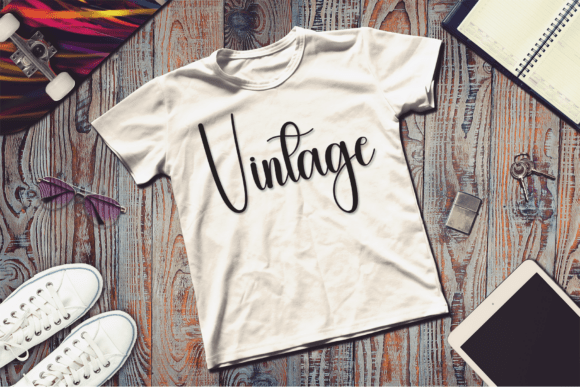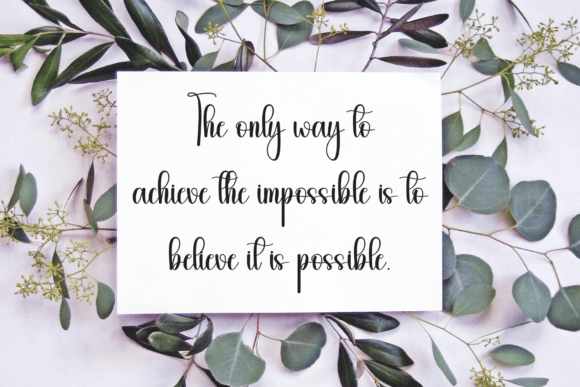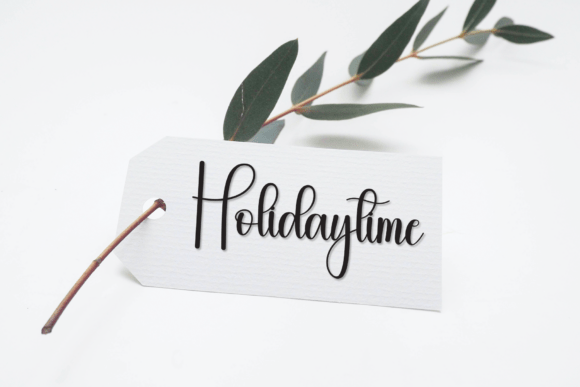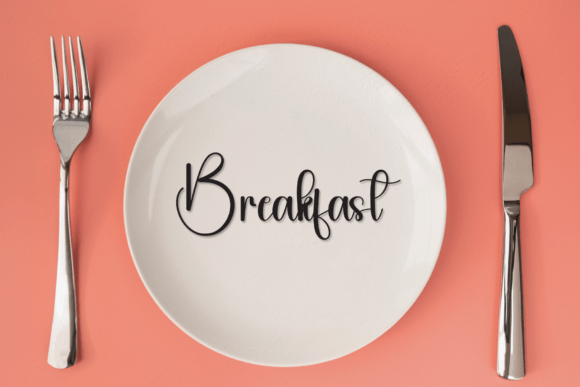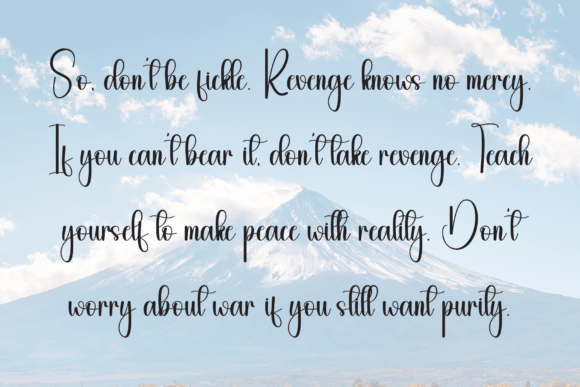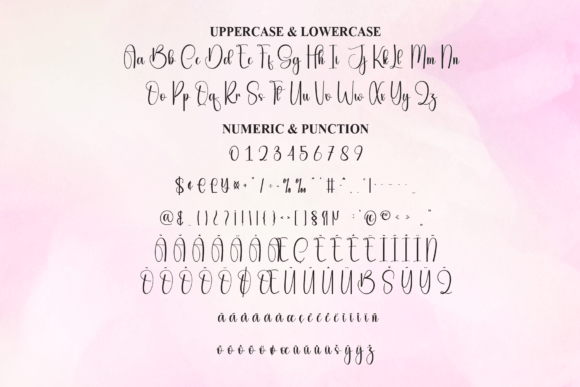
Meet the Font that Brings Barbie-esque Chic to Your Designs
You know that moment when you’re browsing through design inspiration and stumble upon a font that instantly sparks joy? For many designers, it’s a moment of pure creative bliss. For us, it’s often the perfect font that elevates a project from good to great. And today, we’re excited to introduce you to the Barbie Font, a charming and elegant handwritten script font that exudes a fun, feminine, and stylish flair.
Whether you’re working on a modern feminine branding project, creating sweet social media graphics, or designing greeting cards, the Barbie Font is the perfect addition to your toolkit. Its smooth, medium-weight strokes and gracefully looping capital letters make it an instant eye-catcher, and its versatility is unmatched. As a designer, you’ll love how easily it adapts to your creative vision, adding a touch of sophistication and playfulness to any project.
Key Features of Barbie Font
- Font Family: Barbie Font is a custom-designed font, created specifically for the iconic Barbie doll.
- Unique Characteristics: The Barbie Font features a distinctive, playful, and feminine script style, with rounded edges and a cursive feel, making it instantly recognizable.
Barbie Font Review
Overall, I’m impressed with the Barbie Font. Here are the things that I think work well: ✨
- It’s playful and fun, just like the Barbie brand. The font has a bubbly, whimsical feel to it that’s perfect for lighthearted designs.
- The font is highly customizable, with a wide range of styles and variations available. This makes it easy to adapt the font to different design needs.
- The font is highly legible, even at small sizes. This is important for designs where text is the main focus.
However, there are also some limitations to consider: ⚠️
- The font may be too playful for more serious or formal designs. It’s best suited for lighthearted or child-oriented projects.
- The font may be difficult to read in certain contexts, such as at very small sizes or in low-contrast backgrounds.
- The font’s high customizability can also make it overwhelming to navigate and use effectively.
Overall, I think the Barbie Font is a solid choice for designers looking for a fun and playful font. While it may not be suitable for every project, it’s a great option for designs where a lighthearted touch is needed.
The Barbie Font is perfect for creating playful and feminine designs. Some common use cases include:
– Children’s party invitations
– Fashion and beauty branding
– Women’s lifestyle magazines
– Educational materials for young girls.
Getting the Most Out of the Barbie Font
To get the most out of the Barbie Font, experiment with different font sizes, styles, and combinations. Pair the font with bright and pastel colors to create a visually appealing design. Use the font in creative and unexpected ways, such as in speech bubbles or as a decorative element.